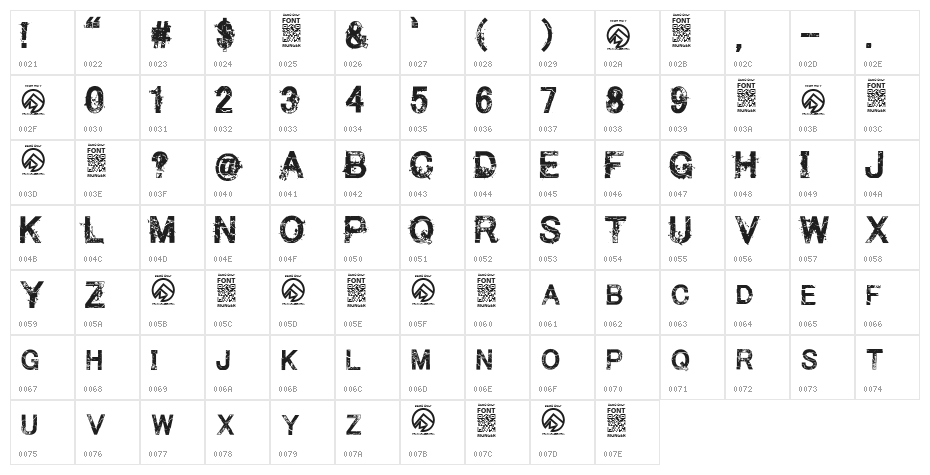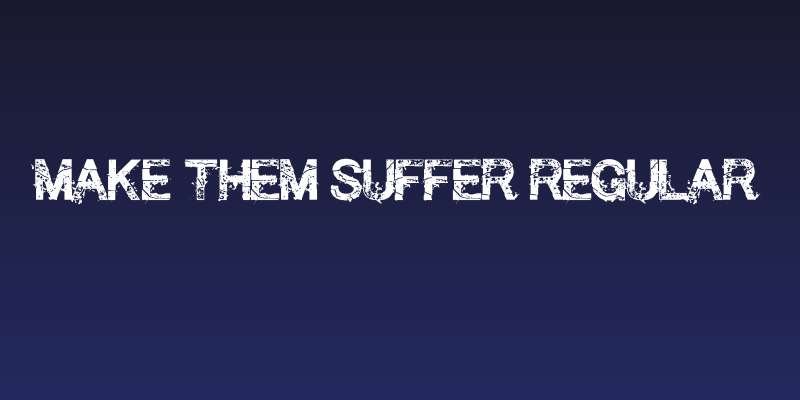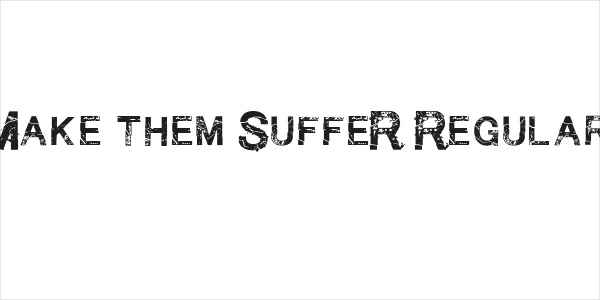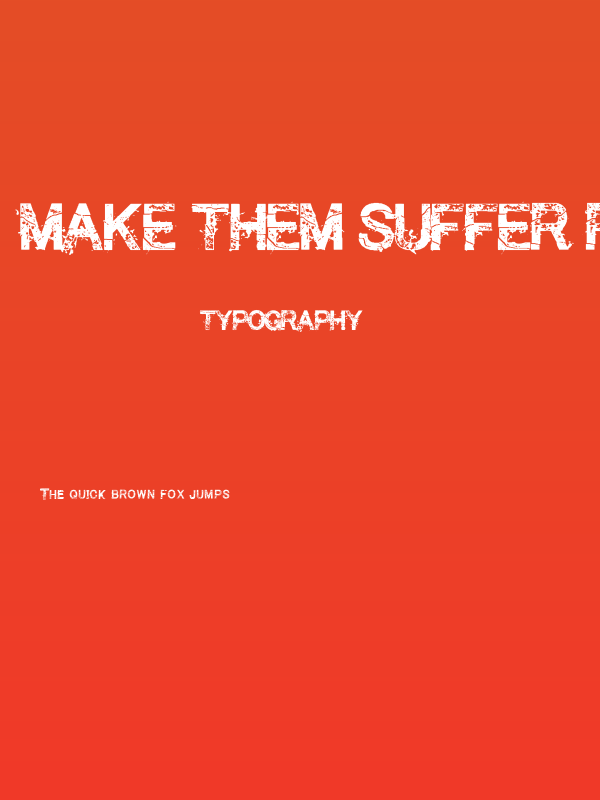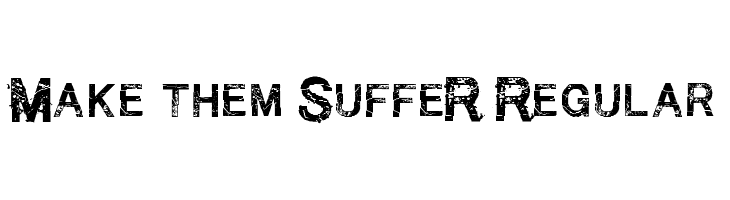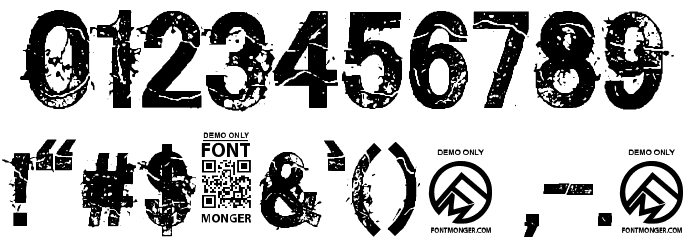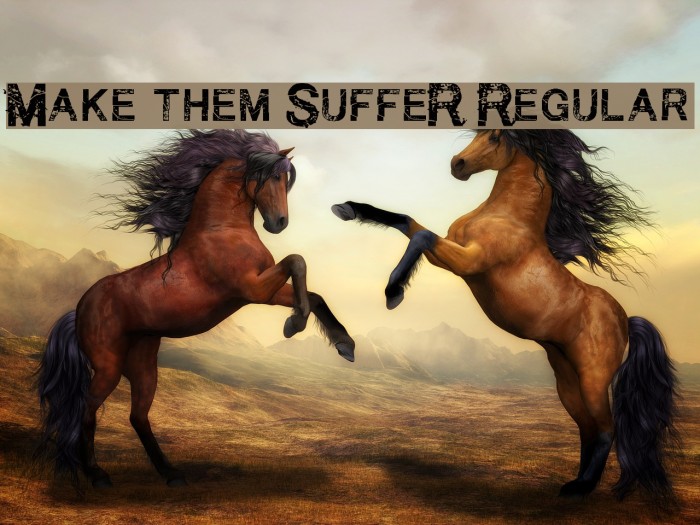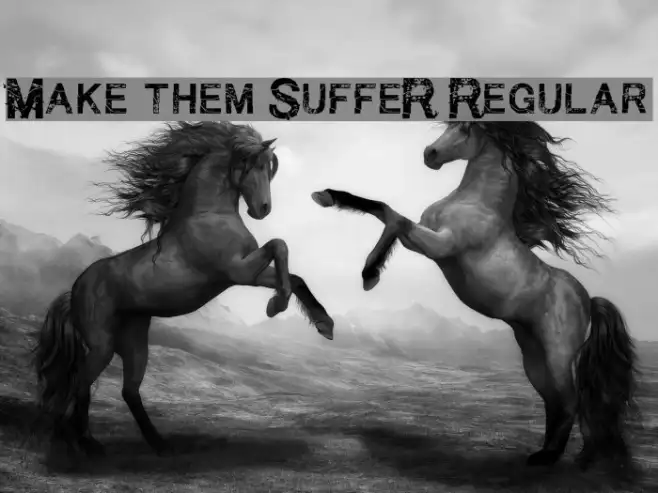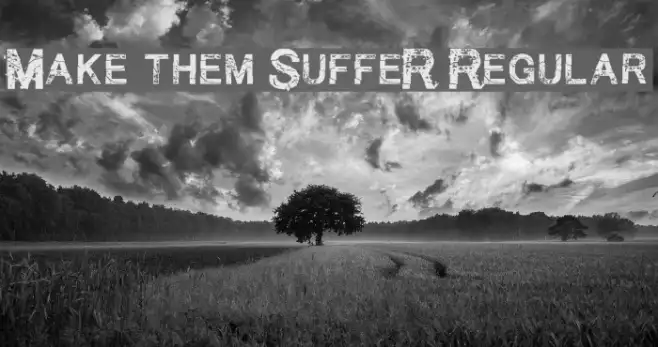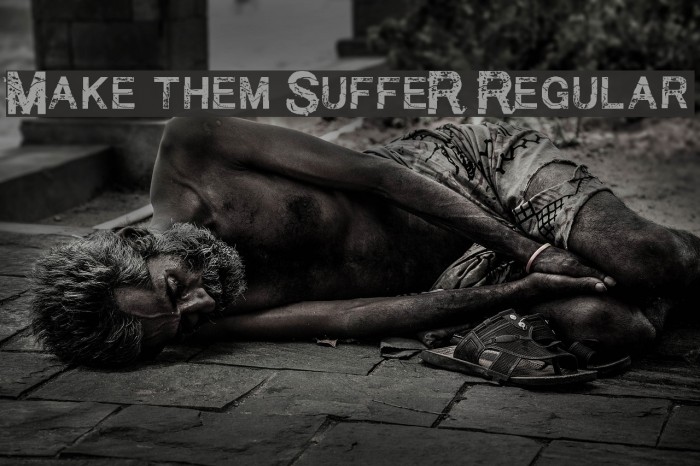
Make them SuffeR Regular Font
This font features a distressed and grungy style, characterized by its rough, textured appearance. The letters have an uneven, worn-out look, giving them a rugged and edgy feel. The uppercase and lowercase letters maintain a consistent design, with each character appearing as if it has been weathered over time. The numbers and special characters follow the same aesthetic, adding to the overall cohesive look. This font is ideal for projects that require a bold, impactful statement, such as posters, album covers, or any design that aims to convey a sense of rebellion or raw energy.
| Overall Style | Grunge, Edgy |
| Proposed Projects | Ideal for posters, album covers, and designs requiring a bold, rebellious statement. |